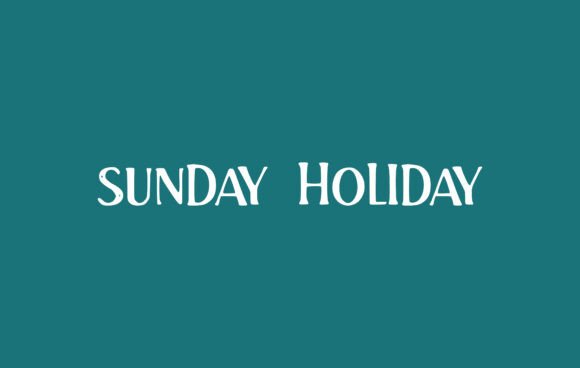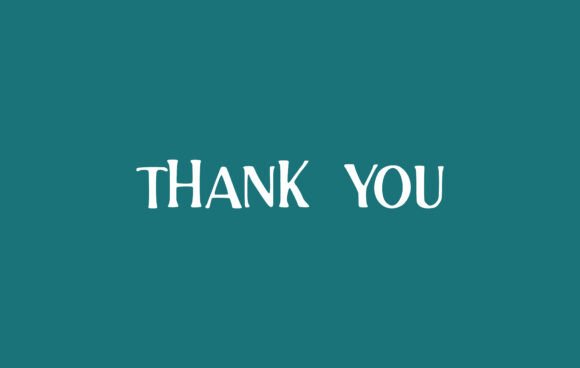
Aaron Font: Elevate Your Designs with a Touch of Romance
In the world of typography, a font can make or break a design. It’s the perfect blend of style, elegance, and readability that can elevate your creative ideas to new heights. If you’re on the hunt for a font that exudes romance and sophistication, look no further than Aaron Font. In this article, we’ll dive into the features and benefits of Aaron Font, and explore how it can become your go-to choice for a wide range of design projects.
What is Aaron Font?
Aaron Font is a beautifully crafted typeface that boasts an authentic and romantic touch. Designed with precision and passion, this font is engineered to capture the hearts of designers and crafters alike. Its unique blend of classic and modern elements makes it an versatile choice for various design applications.
Key Features of Aaron Font
- Legibility: Aaron Font is designed to be highly legible, making it perfect for both title and body text. Its clear and concise letterforms ensure that your message is conveyed with ease, regardless of the design context.
- Romantic Touch: Aaron Font’s romantic undertones add a touch of elegance and sophistication to any design. Its subtle curves and refined lines evoke a sense of luxury and refinement, making it ideal for high-end branding and design projects.
- Versatility: This font is incredibly versatile, suitable for a wide range of design applications, including magazine headlines, social media graphics, branding, wedding invitations, cards, and more.
Design Applications for Aaron Font
Aaron Font’s flexibility and charm make it an excellent choice for various design projects. Here are some ideas to get you started:
- Magazine Headlines: Add a touch of sophistication to your magazine headlines with Aaron Font. Its elegant design and high legibility make it perfect for grabbing readers’ attention.
- Social Media Graphics: Elevate your social media presence with Aaron Font. Use it to create stunning graphics, quotes, and promotional materials that will leave your followers in awe.
- Branding: Establish a strong brand identity with Aaron Font. Its unique blend of classic and modern elements makes it an excellent choice for logos, business cards, and letterheads.
- Wedding Invitations: Make your wedding invitations truly special with Aaron Font. Its romantic undertones and elegant design will set the tone for an unforgettable celebration.
- Cards and Stationery: Add a personal touch to your cards and stationery with Aaron Font. Its legibility and charm make it perfect for creating beautiful, handmade cards and letters.
Why Choose Aaron Font?
With so many fonts available, why choose Aaron Font? Here are a few compelling reasons:
- Unique Design: Aaron Font’s distinctive design sets it apart from other fonts. Its blend of classic and modern elements makes it a true standout.
- High Legibility: Aaron Font is designed to be highly legible, ensuring that your message is conveyed with ease.
- Versatility: This font is incredibly versatile, suitable for a wide range of design applications.
In conclusion, Aaron Font is a beautifully crafted typeface that offers a unique blend of romance, elegance, and readability. Its versatility, legibility, and charm make it an excellent choice for a wide range of design projects. Whether you’re a designer, crafter, or DIY enthusiast, Aaron Font is sure to become your go-to choice for creating stunning designs. So why wait? Discover the magic of Aaron Font and elevate your designs to new heights.